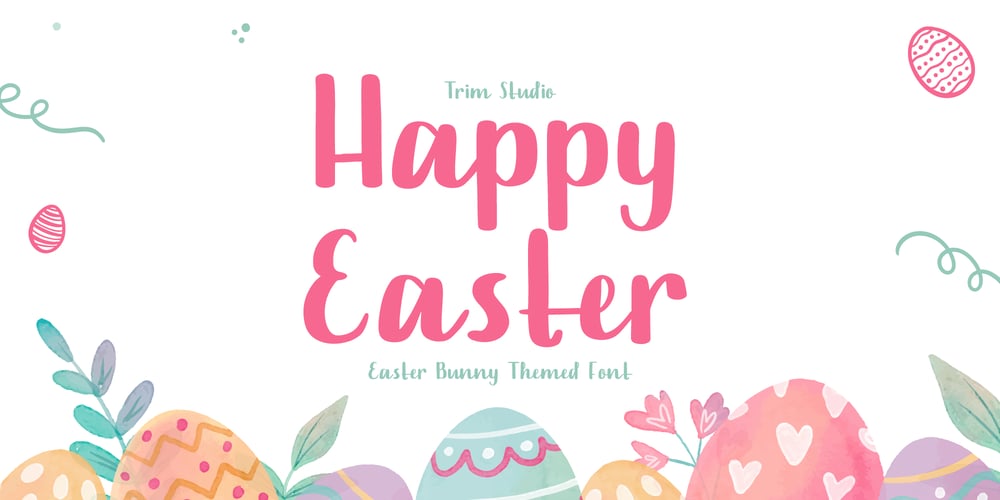
Happy Easter
Happy Easter font
Happy Easter Font Family was designed by Deri Kurnia and published by Trim Studio. Happy Easter contains 1 styles and family package options. **Happy Easter **A cute script font that’s perfect for Easter-themed moments is whimsical and playful. It has flowing, organic lines that resemble the curves of an Easter egg or the curling petals of a spring flower. The letters are so airy, with a gentle bounce that gives them a sense of movement and liveliness.—File Include:- Readme.pdfThank you for let us be your design partner, If you have any questions please don’t hesitate to drop me a message